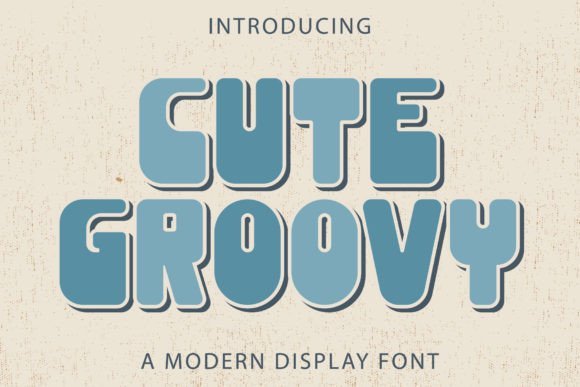
Capturing the Essence of Retro Chic
Do you remember that moment when you stumbled upon the perfect font for your creative project? The one that makes everything fall into place, and your design suddenly becomes a masterpiece? For many designers, that moment is what makes all the hard work worth it. And for those who are about to experience it, we’re excited to introduce you to the Cute Groovy Font, a stylish and playful retro display font that’s sure to make your projects stand out.
This versatile font is perfect for adding a touch of groovy charm to your greeting cards, headlines, and more. Its retro vibe is not only visually appealing but also nostalgic, making it a valuable addition to any designer’s toolkit. Whether you’re working on a project that requires a funky, carefree feel or a sophisticated, vintage aesthetic, the Cute Groovy Font has got you covered.
Cute Groovy Font Key Features
- Font Family: Cute Groovy Font is a unique, hand-drawn font family available in 4 styles: Regular, Italic, Bold, and Bold Italic.
- Character Set: The font includes a wide range of characters, including uppercase and lowercase letters, numbers, punctuation marks, and special characters.
- Unique Characteristics: Cute Groovy Font features a distinctive, playful design with rounded shapes and whimsical details, making it perfect for creating eye-catching and fun designs.
Cute Groovy Font Review
Overall, I’m really enjoying working with the Cute Groovy Font. Here are some things that stand out to me:
- ✨ Unique and playful style: This font has a distinct vibe that’s perfect for projects that need a touch of whimsy.
- ✨ Wide range of characters: The font includes a large character set, including international characters and punctuation marks.
- ✨ Easy to read: Despite its playful style, the font is surprisingly easy to read, even at smaller font sizes.
That being said, there are a few limitations to keep in mind:
- ⚠️ Limited font weights: The font only comes in a few different weights, which can make it harder to achieve the perfect level of boldness or subtlety.
- ⚠️ Some characters may not be suitable for all projects: While the font has a wide range of characters, some of them may not be suitable for projects that require a more formal or professional tone.
Overall, I think the Cute Groovy Font is a great choice for projects that need a fun and playful touch. While it may not be the best choice for every project, I think it’s a great addition to any designer’s toolkit.
Getting the Most Out of Cute Groovy Font
To get the most out of Cute Groovy Font, use it for designs that require a playful and whimsical touch, such as:
- Children’s party invitations
- Wedding stationery
- Online course or tutorial materials
Cute Groovy Font is perfect for designs that require a fun and quirky feel, such as: